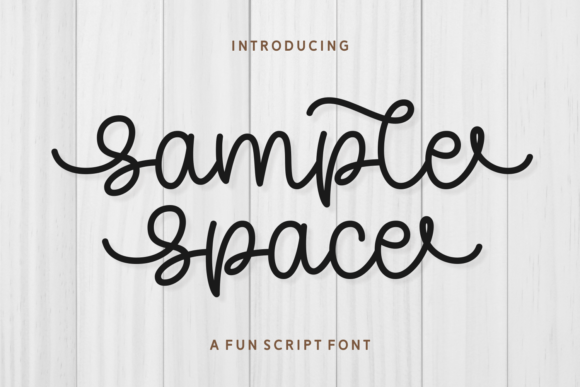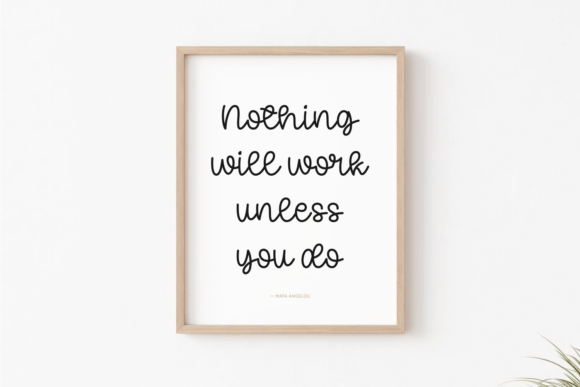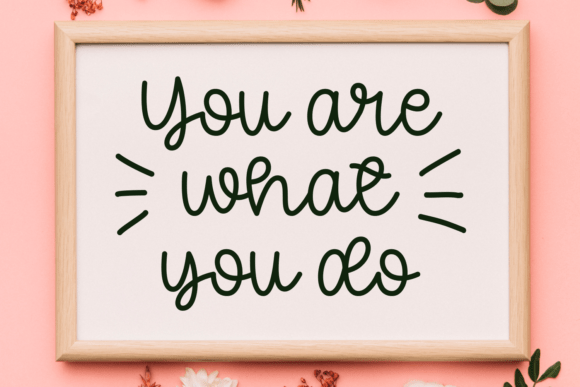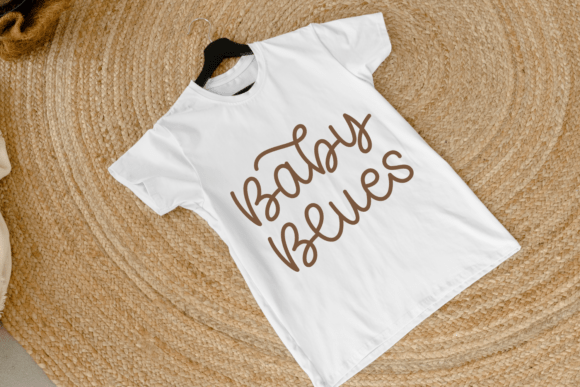
Sample Space Font: A Cute Script for Playful DIY & Craft Designs!
About the Sample Space Font
Meet Sample Space Font, a stunning font that brings a touch of elegance and professionalism to any design. Sample Space is a fun and cheerful script font that combines hand-drawn charm with modern appeal. Its rounded curves, smooth flow, and lighthearted loops make it perfect for kids’ projects, crafting designs, social media posts, and branding with personality. Whether you’re designing for joy or playfulness, Sample Space delivers a delightful handwritten touch.
Sample Space Font Usage Examples
Sample Space Font Example